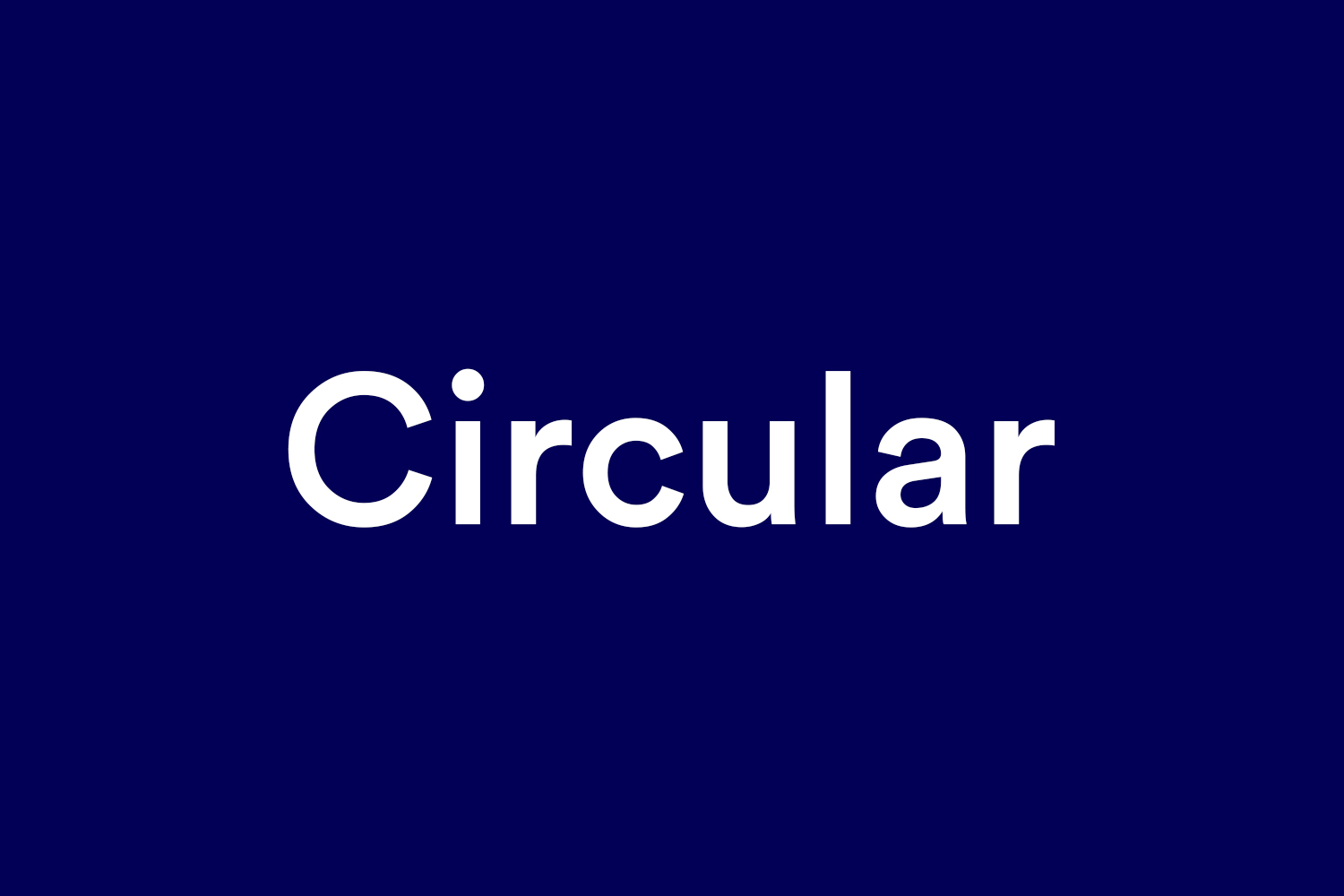
Circular Free Font presents a humanist sans-serif style characterized by a harmonious blend of geometric and organic forms. This high-quality sans-serif font features robust geometric types, making it an excellent choice for websites, prints, and various design applications. Circular Std provides comprehensive support for the Latin alphabet and extends its versatility by accommodating numerous other alphabets. Elevate your design projects with the clean and versatile aesthetics of Circular Free Font. Download the font for free if you need it for personal use or purchase the full version for commercial use.
Designed by Lineto